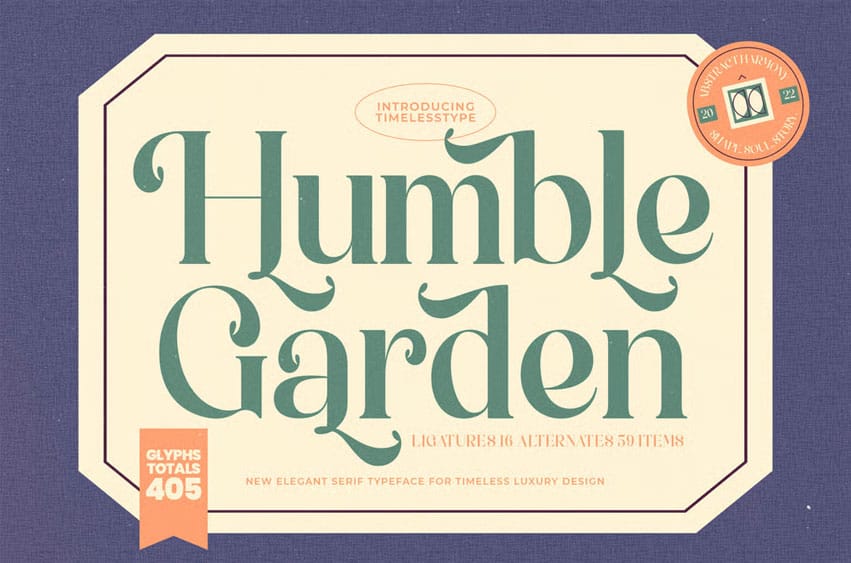
Humble Garden Font
Humble Garden Font is an elegant serif typeface crafted with refined curves, artistic terminals, and a beautifully balanced classic-modern look. With its timeless charm, sophisticated structure, and smooth ornamental flow, this typeface is perfect for luxury branding, editorial layouts, wedding invitations, botanical packaging, vintage-inspired logos, magazine titles, and high-end product design.
Featuring 16 ligatures and 59 stylish alternates, Humble Garden offers complete creative flexibility to build expressive headlines and graceful typographic compositions. The font includes 405 glyphs, multilingual support, and harmonious detailing—making it an ideal choice for designers seeking elegance with a touch of nostalgic beauty. FEATURE:
• Ligature
• Uppercase and lowercase